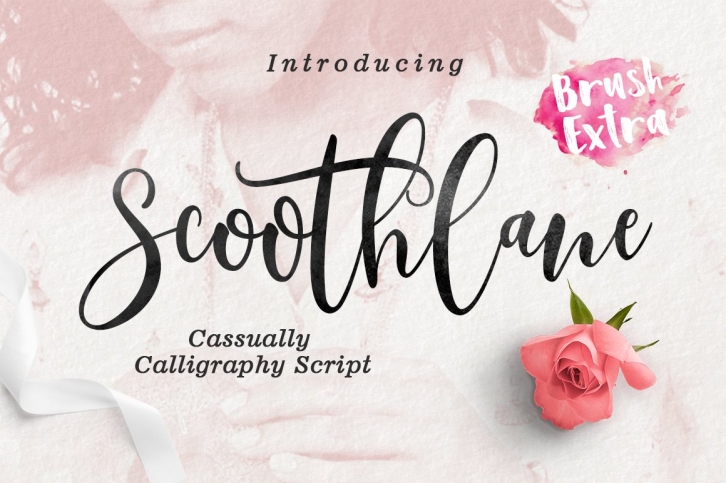
Say Hello to "Scoothlane"! A Script with Soft letters with funny lines and very unique lines are also full of passion.and comes with a brush letter that will make you more excited for your fabulous design touch.
Scoothlane perfect for adding a fresh & unique look to company branding, logos, greetings, magazine layout, homeware, prints and invitations.
• Scoothlane has a script typeface and extra letters brush that allows you to be more free in designing.
For those with Opentype capable software ( Photoshop CC or any version of Illustrator/ Indesign), Scoothlane also comes with Opentype features such as access to all the alternate letters and double letter ligatures.